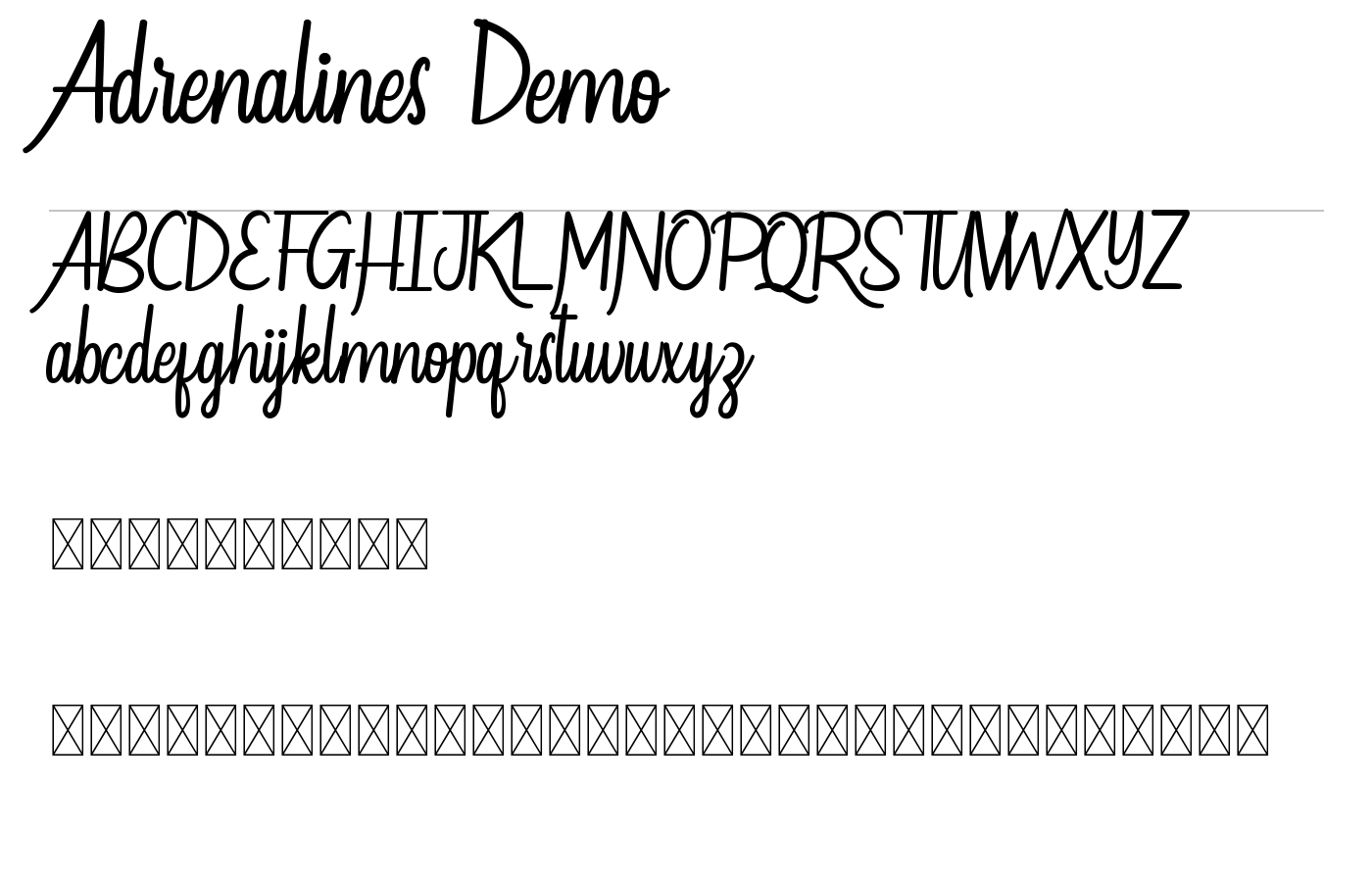
Adrenalines Demo is a tall, narrow script font with a handwritten feel, featuring elegant, flowing letterforms that combine both uppercase and lowercase styles with a slight slant. Its thin strokes and delicate curves give it a stylish yet casual personality, making it ideal for creative projects like invitations, branding, and headlines where a personal, artistic touch is desired. This font works best in designs that need an expressive, dynamic look without compromising readability.
Adrenalines Demo Font
About Adrenalines Demo Font